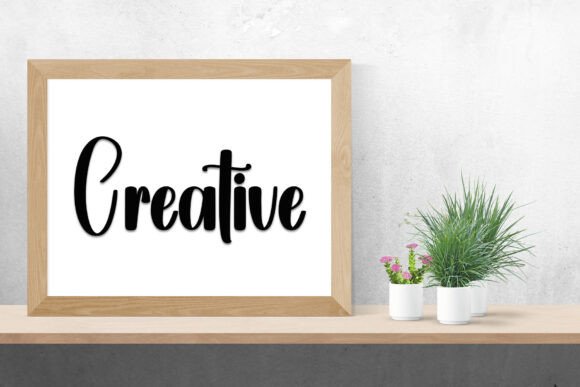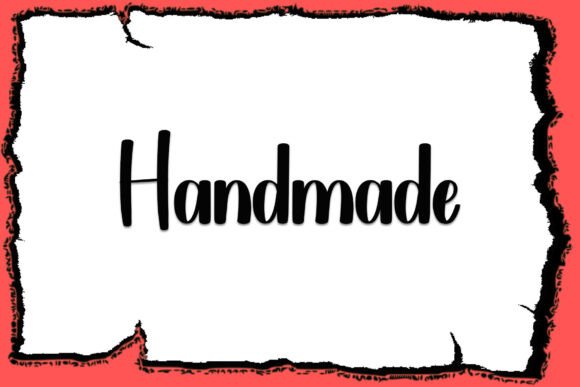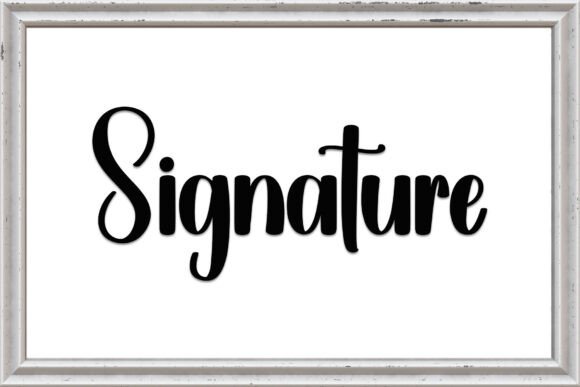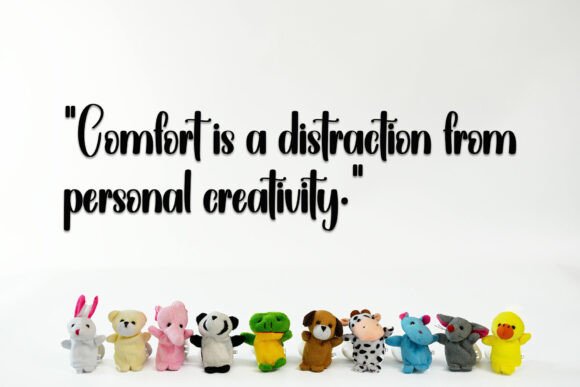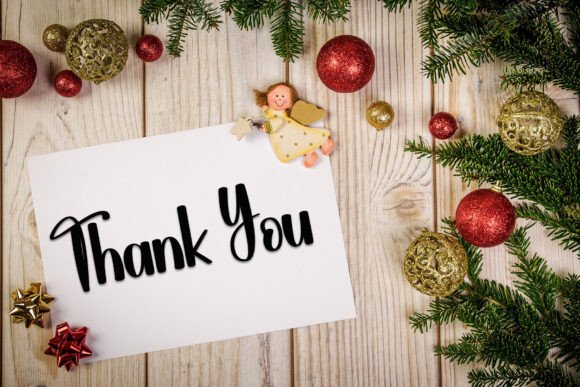
Introducing Ballpoint Font: The Elegant Handwritten Font for Your Design Needs
Are you looking for a font that adds a touch of elegance and sophistication to your designs? Look no further than Ballpoint Font, a beautiful handwritten font that is sure to capture your heart. With its incredibly distinct and timeless style, Ballpoint Font is perfect for designers and crafters who want to create spectacular designs that stand out from the crowd.
What is Ballpoint Font?
Ballpoint Font is a neat and beautiful handwritten font that is described by an elegant touch. Its unique style is reminiscent of traditional ballpoint pen writing, with a subtle flair and sophistication that sets it apart from other fonts. Whether you’re working on a logo, a poster, or a digital project, Ballpoint Font is the perfect choice for adding a personal touch to your designs.
Key Features of Ballpoint Font
So, what makes Ballpoint Font so special? Here are just a few of its key features:
- Elegant and sophisticated: Ballpoint Font has a refined, elegant feel that is perfect for designs that require a touch of sophistication.
- Handwritten style: With its handwritten style, Ballpoint Font adds a personal touch to your designs that is hard to replicate with other fonts.
- Distinct and timeless: Ballpoint Font has a unique style that is both timeless and distinctive, making it perfect for designs that need to stand out.
- Versatile: Whether you’re working on a logo, a poster, or a digital project, Ballpoint Font is versatile enough to fit any design need.
Why Choose Ballpoint Font?
So, why should you choose Ballpoint Font for your design needs? Here are just a few reasons:
- Adds a personal touch: With its handwritten style, Ballpoint Font adds a personal touch to your designs that is hard to replicate with other fonts.
- Perfect for branding: Ballpoint Font is perfect for branding projects, such as logos and business cards, where a touch of elegance and sophistication is required.
- Great for digital projects: Whether you’re working on a website, a social media graphic, or a digital ad, Ballpoint Font is a great choice for adding a touch of personality to your designs.
- Easy to read: Despite its elegant style, Ballpoint Font is easy to read, making it perfect for designs that require a clear and concise message.
How to Use Ballpoint Font
Using Ballpoint Font is easy! Here are a few tips for incorporating it into your designs:
- Pair it with other fonts: Ballpoint Font pairs well with other fonts, such as sans-serif fonts, to create a unique and interesting design.
- Experiment with colors: Ballpoint Font looks great in a variety of colors, from bold and bright to subtle and muted.
- Use it for headings: Ballpoint Font is perfect for headings and titles, where its elegant style can really shine.
- Add some texture: Consider adding some texture to your design, such as a subtle background or a texture overlay, to really make Ballpoint Font pop.
In conclusion, Ballpoint Font is a beautiful and elegant handwritten font that is perfect for designers and crafters who want to add a touch of sophistication to their designs. With its incredibly distinct and timeless style, Ballpoint Font is sure to capture your heart and inspire your creativity. So why wait? Fall in love with Ballpoint Font today and start creating spectacular designs that stand out from the crowd!